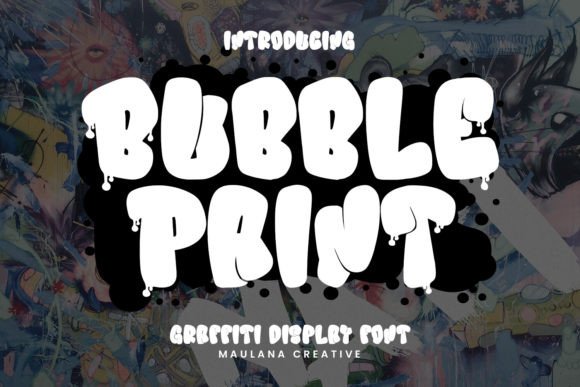
Introducing the remarkable Bubble Paint Font, a masterpiece from the creative genius of Maulana Creative, a name synonymous with innovation in the world of typography. Let your imagination run wild and dive into a realm of boundless creativity with this captivating decorative font. Bubble Paint is the perfect companion for all your creative endeavors, ranging from captivating campaign posters to eye-catching logos, social media posts that pop, movie titles that intrigue, book titles that captivate, and any text that demands attention.
With Bubble Paint, the possibilities are endless. Its bold strokes and playful characters, accented with delightful ligatures and alternates, unleash a symphony of visual delight. Its multilingual support, spanning over 100 languages, ensures that your message transcends borders and resonates with audiences worldwide. Bubble Paint is not just a font; it's a versatile tool that empowers you to craft stunning designs that leave an unforgettable impression.
Whether you're a seasoned designer or a creative enthusiast, Bubble Paint is your ultimate weapon in the battle for attention. Its versatility extends beyond mere aesthetics, seamlessly blending into any project, from short texts to lengthy letters, seamlessly complementing script or serif fonts for a harmonious typographic blend. Unleash your inner artist and make a statement with Bubble Paint, the font that commands attention and ignites imaginations.